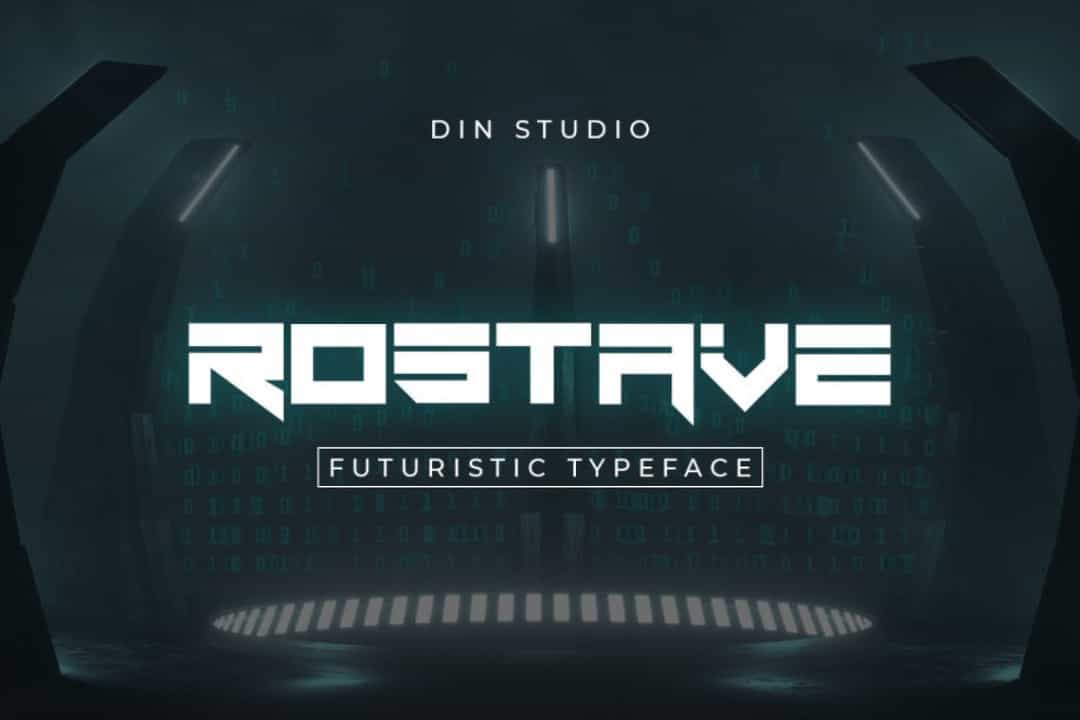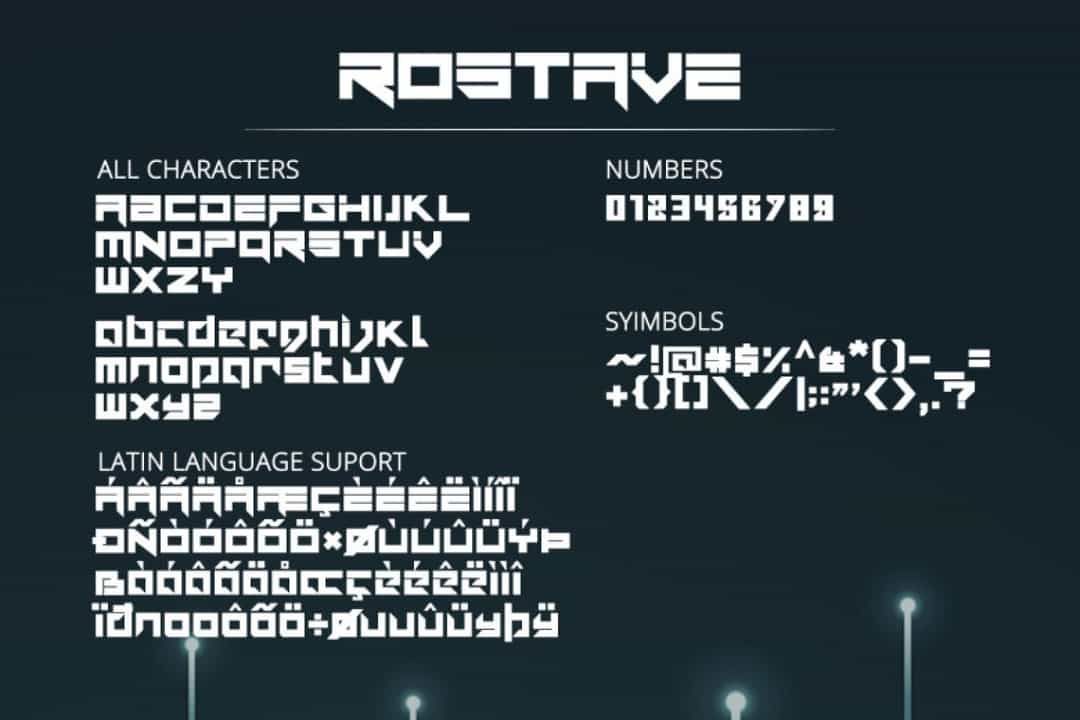
Rostave Font is an exquisite font designed to stand out in any environment, perfect for display purposes. Crafted by experts to become an absolute fan favorite font, this font will take all your ideas one step further!